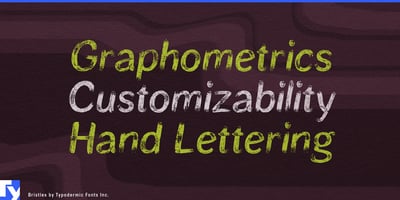
Looking to imbue your designs with a rugged, handcrafted feel and a touch of organic texture? Bristles Font Free Download offers a compelling opportunity to explore a typeface that exudes authentic character. It's crucial to remember, however, that while a Bristles Font Free Download might be available for personal and testing purposes, a commercial license is required for any professional or revenue-generating projects. This ensures legal compliance and provides essential support to the talented font designers.
The Bristles Font is exceptionally well-suited for projects that demand a natural, distressed, or artisanal aesthetic. Its often brush-stroked, textured, or slightly imperfect letterforms make it an excellent choice for organic food packaging, handcrafted product labels, and rustic cafe branding. It's ideal for outdoors and adventure-themed promotions, indie music album covers, and creative social media graphics where a raw and authentic vibe is desired. Furthermore, consider Bristles Font for t-shirt designs, craft fair signage, and any design aiming to convey a sense of genuine creativity and a human touch. Its unique texture also lends itself well to distressed overlays and artistic mixed-media compositions.
What makes the Bristles Font so exciting is its inherent ability to add a tactile and expressive quality to your text. Each character often carries the unique imperfections and textures of real brush strokes, lending an authentic and vibrant feel to any design. This characteristic allows it to communicate a sense of individuality, artistry, and unpolished charm, making your message resonate with genuine personality and impact. It’s a font that doesn't just display text; it feels handmade, adding a layer of organic flair and powerful appeal to any creative endeavor. Its distinctive aesthetic ensures your work will capture attention with undeniable character and a memorable presence.
The Bristles Font family typically focuses on delivering its strong, unique stylistic elements. You'll often find a powerful Regular weight, which might be complemented by specific bold variations or even additional textured/distressed styles to enhance its visual versatility for display purposes. Due to its handcrafted nature, the family might also include unique alternates or stylistic sets that offer variations in its brush-stroke charm, providing additional creative options for crafting truly unique and impactful typographic compositions.